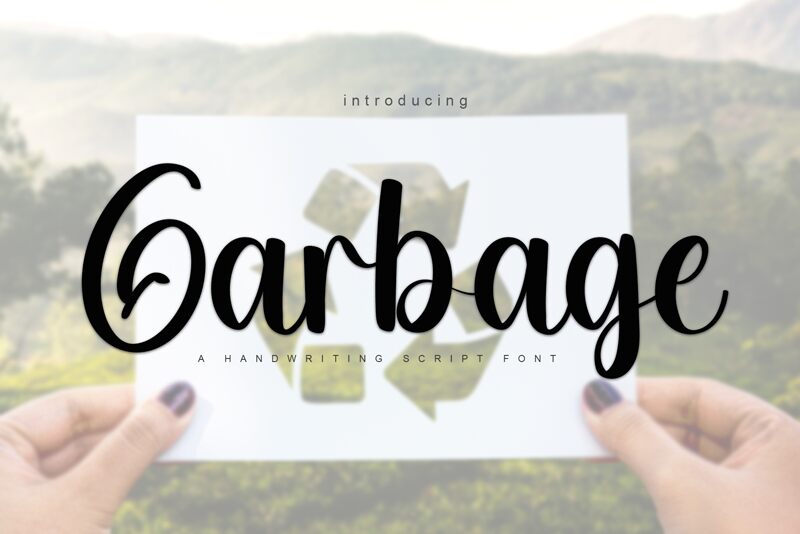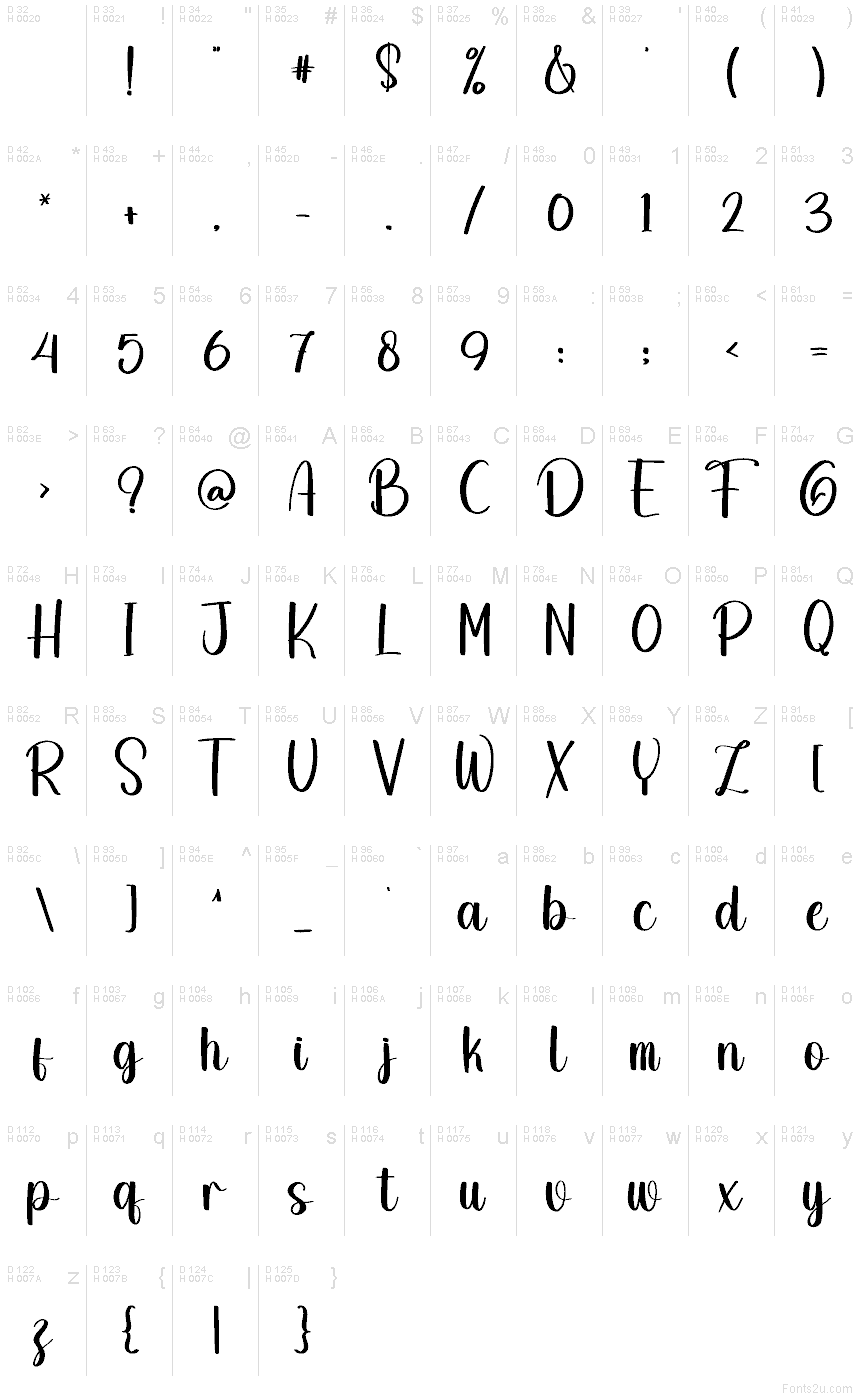
Garbage
Garbage font by Creatype Designer is a free handwritten typeface with a name that’s delightfully at odds with its look. Thick, inky strokes loop into round, bouncy letters that feel like they were brushed in one confident motion. The gentle slant and smooth, connected rhythm give it a friendly, upbeat energy, while the generous curves keep it soft rather than messy or chaotic.
Using Garbage font, you get a script that shines on social media graphics, quote posters, branding for crafty shops, cute packaging, greeting cards, and playful invitations. Its flowing forms read clearly at medium to large sizes, where the swashes and loops can breathe. This free font pairs nicely with a clean sans serif in small text—let Garbage handle the headline while the sans keeps details tidy.